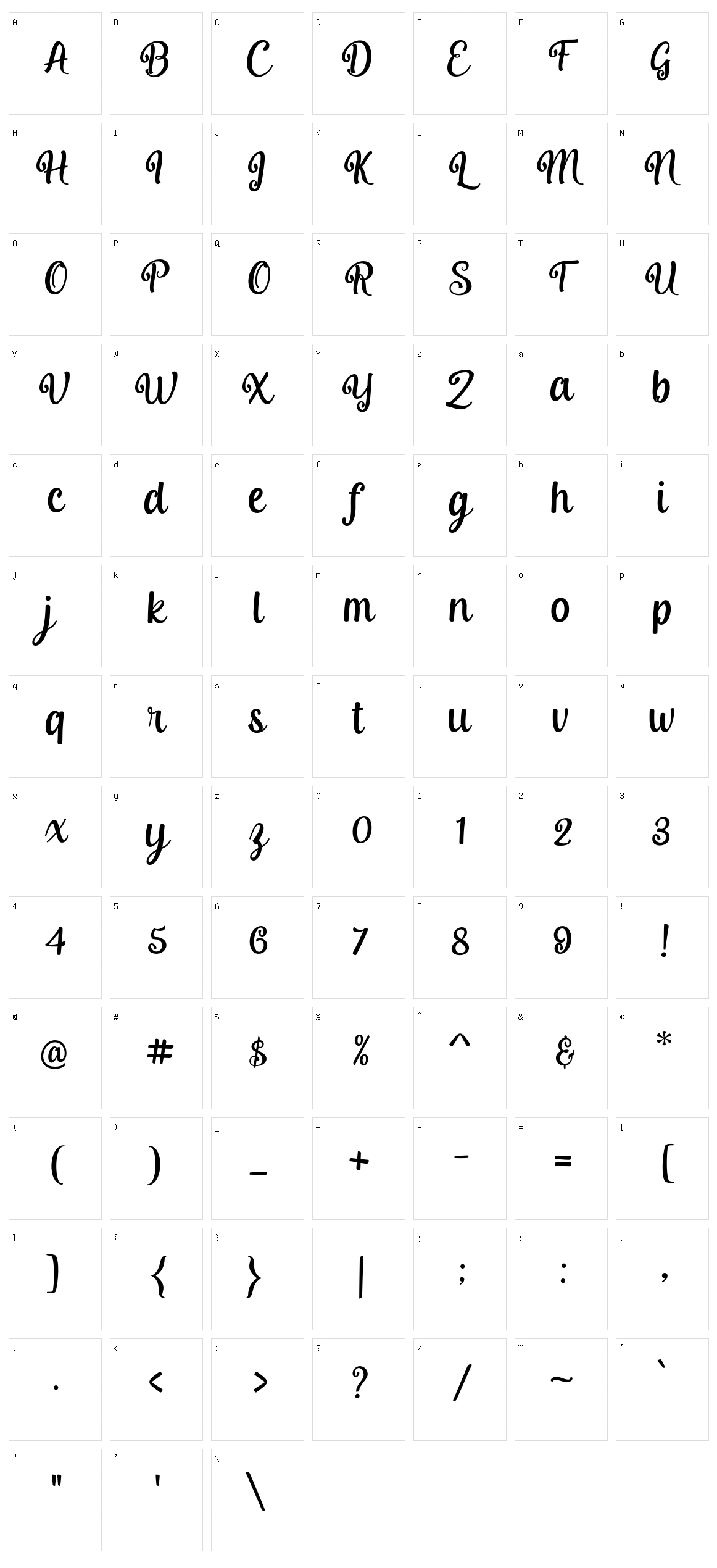
The free font Misyalli is carefully designed by Teuku Muslyawan, showcasing a thoughtful balance of creativity and usability and falls under the Script font style. When you download the ZIP file, it contains only 61.6 KB of font files, making it lightweight and quick to download. Please review the license details below to understand permitted usage and distribution rights. If license information is not available, we recommend using this font for personal projects only or contacting the author directly for commercial usage permissions.